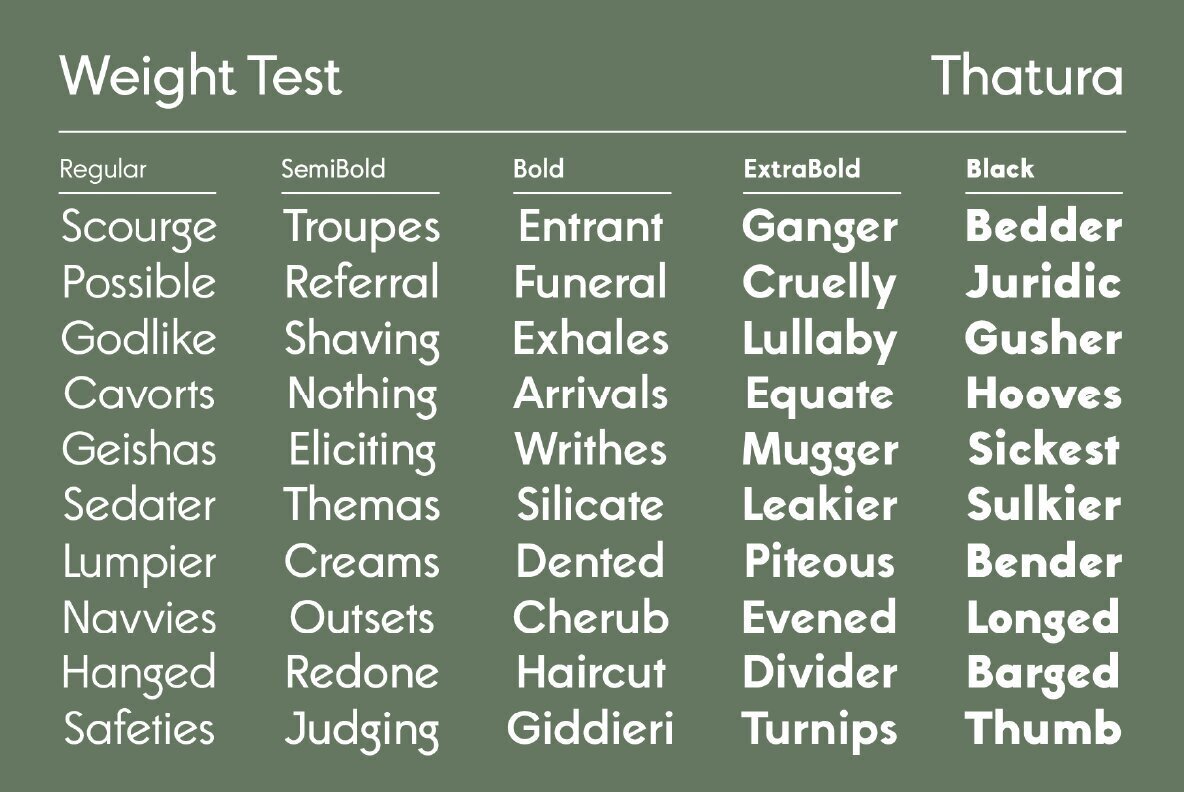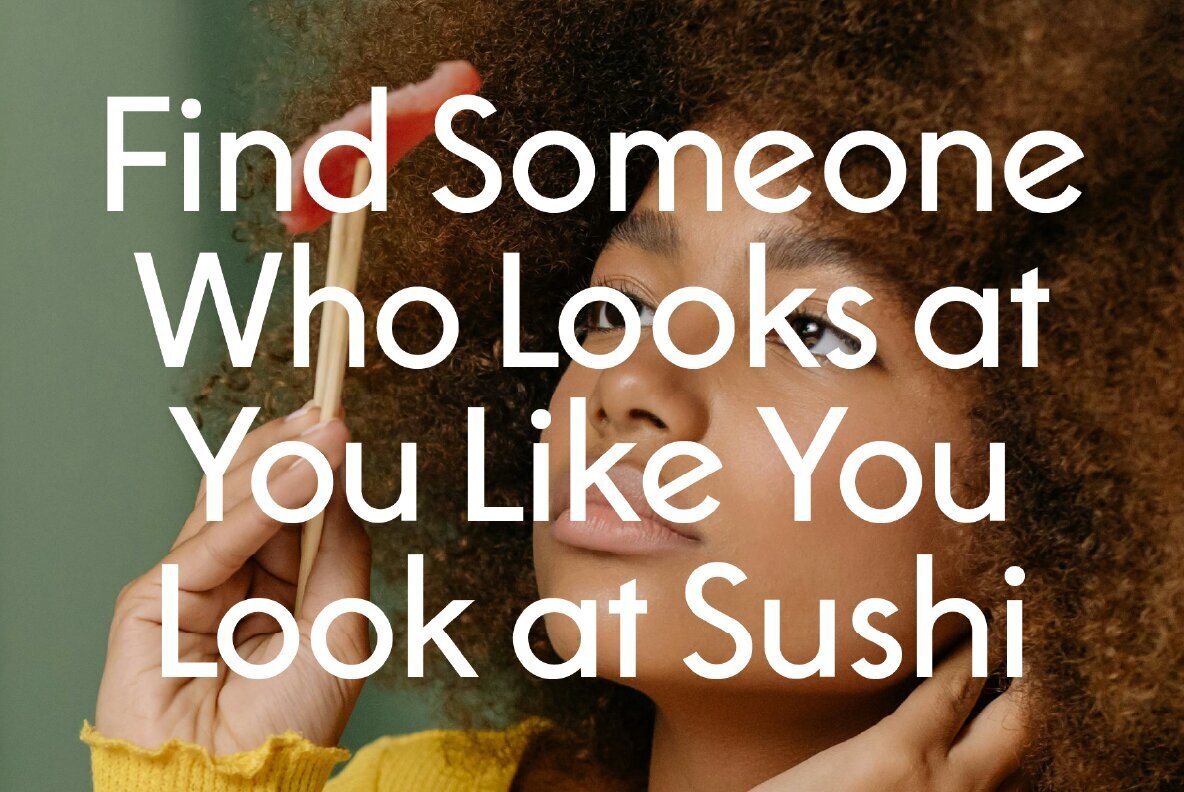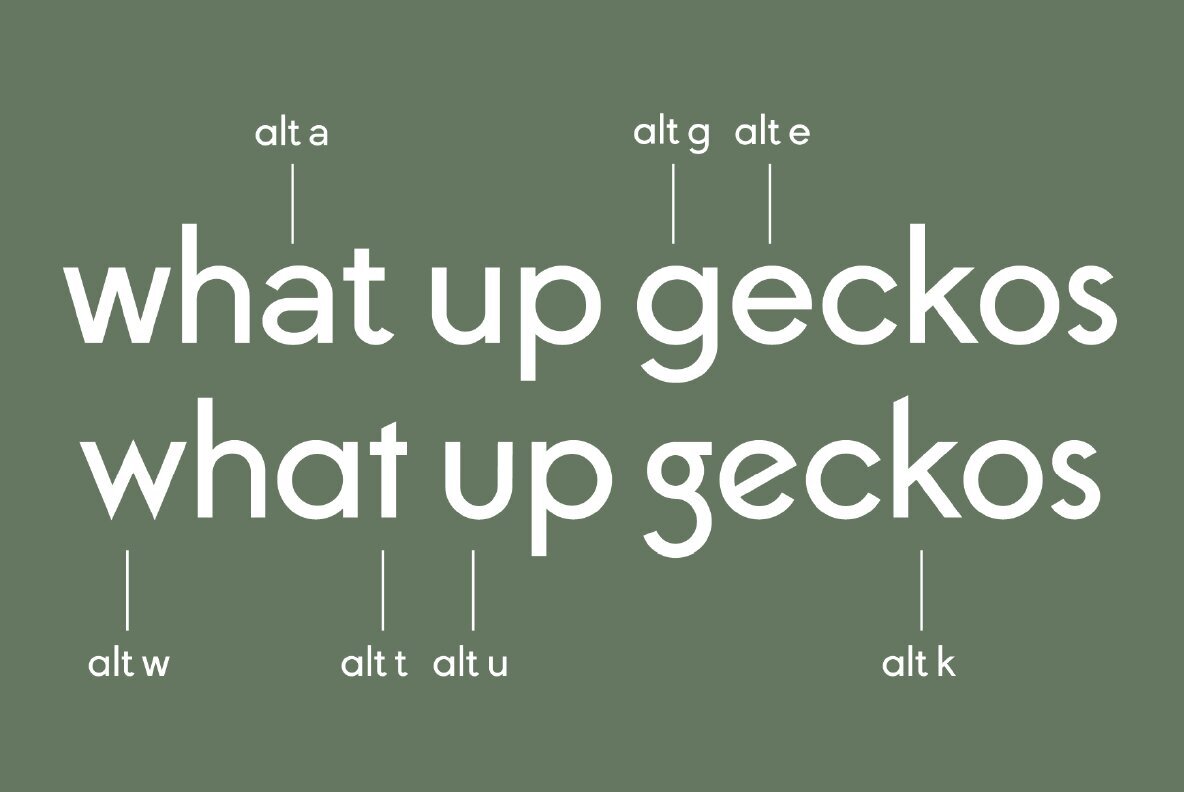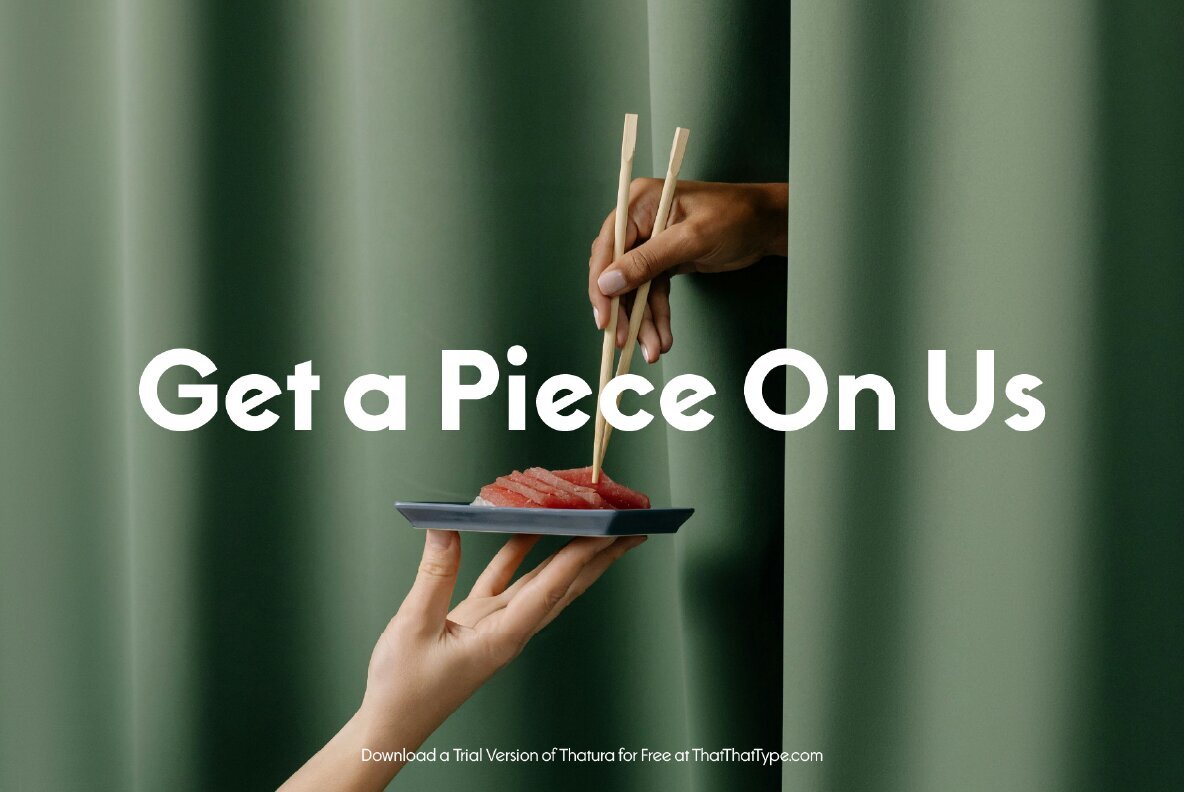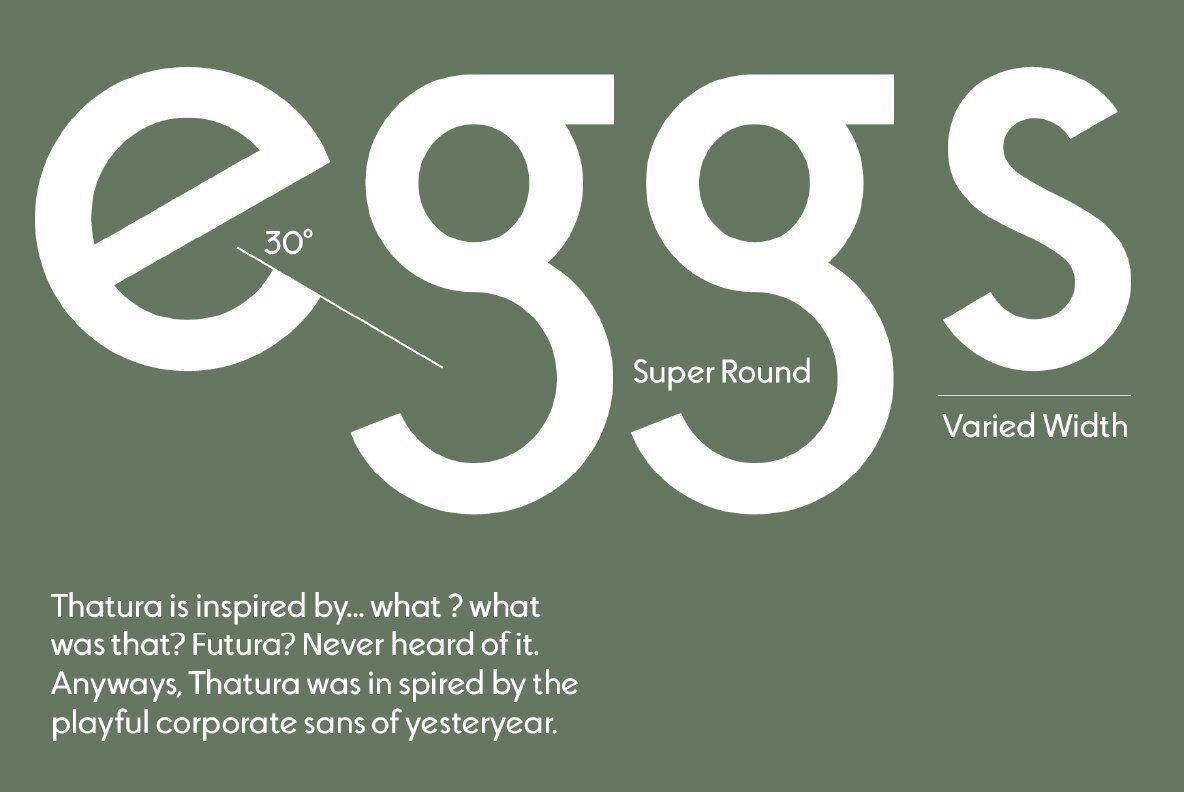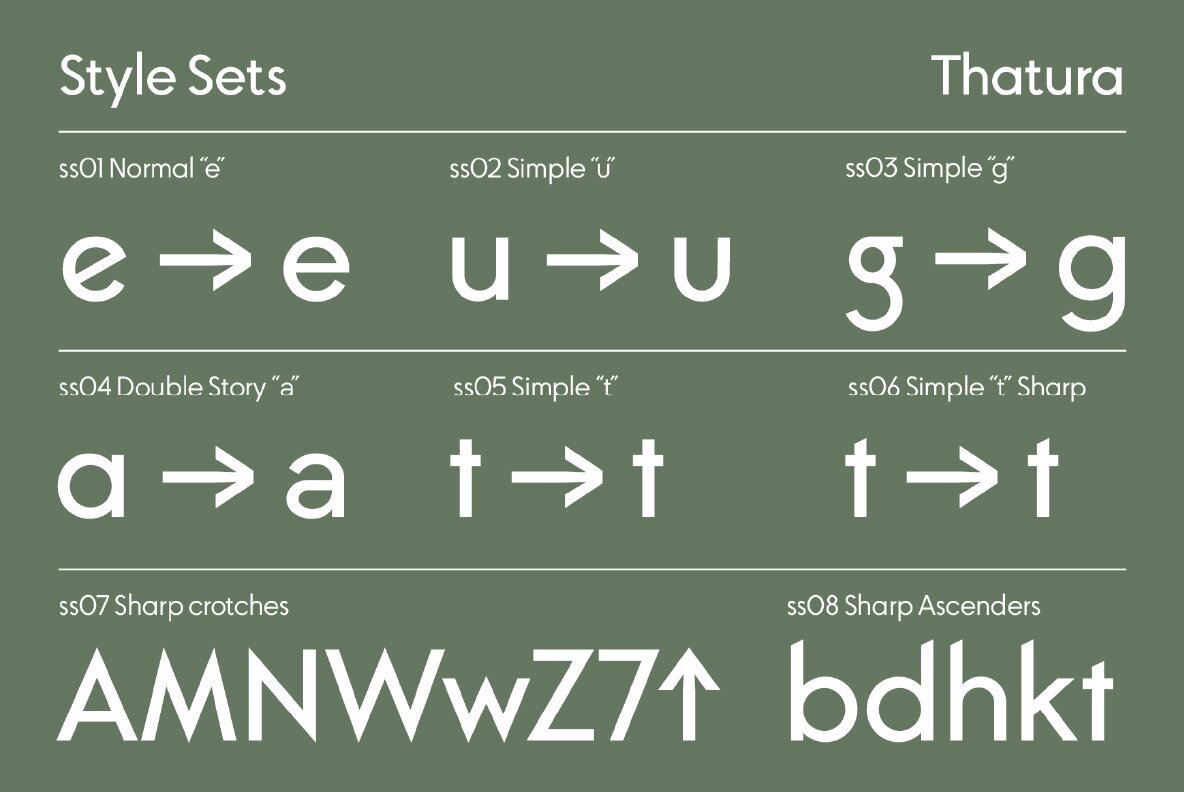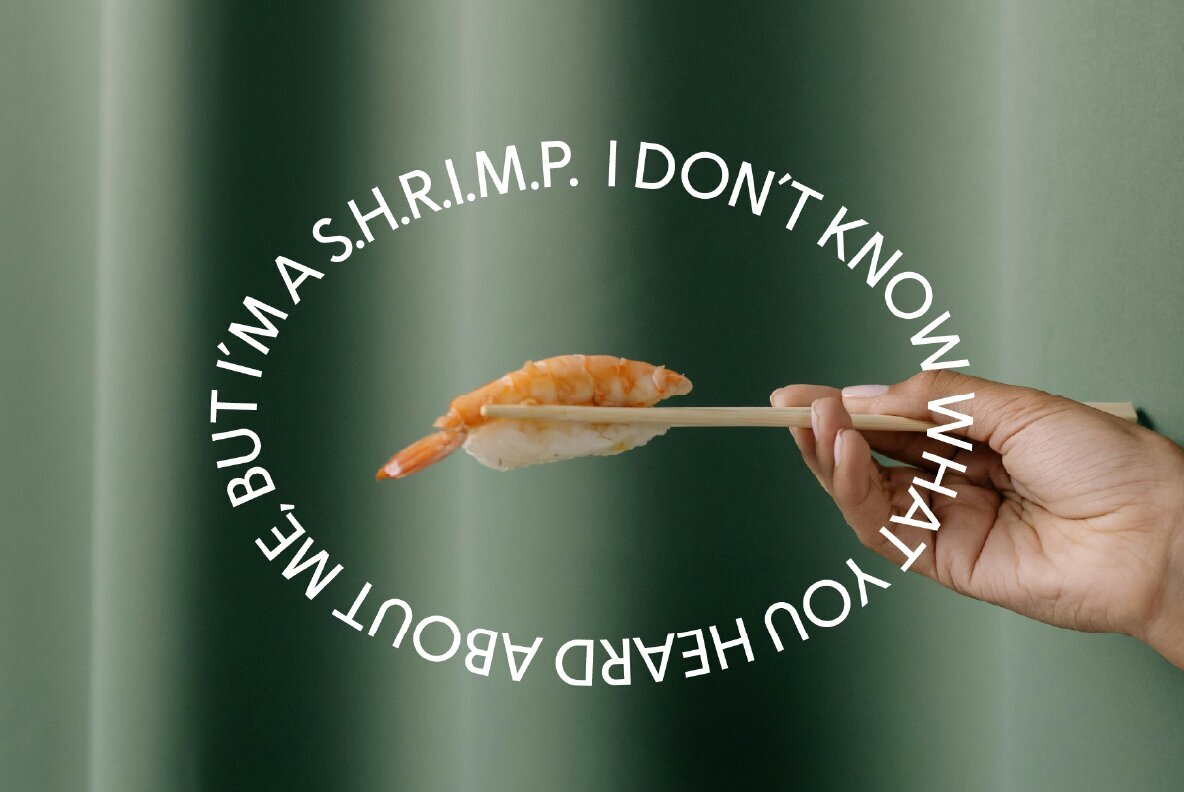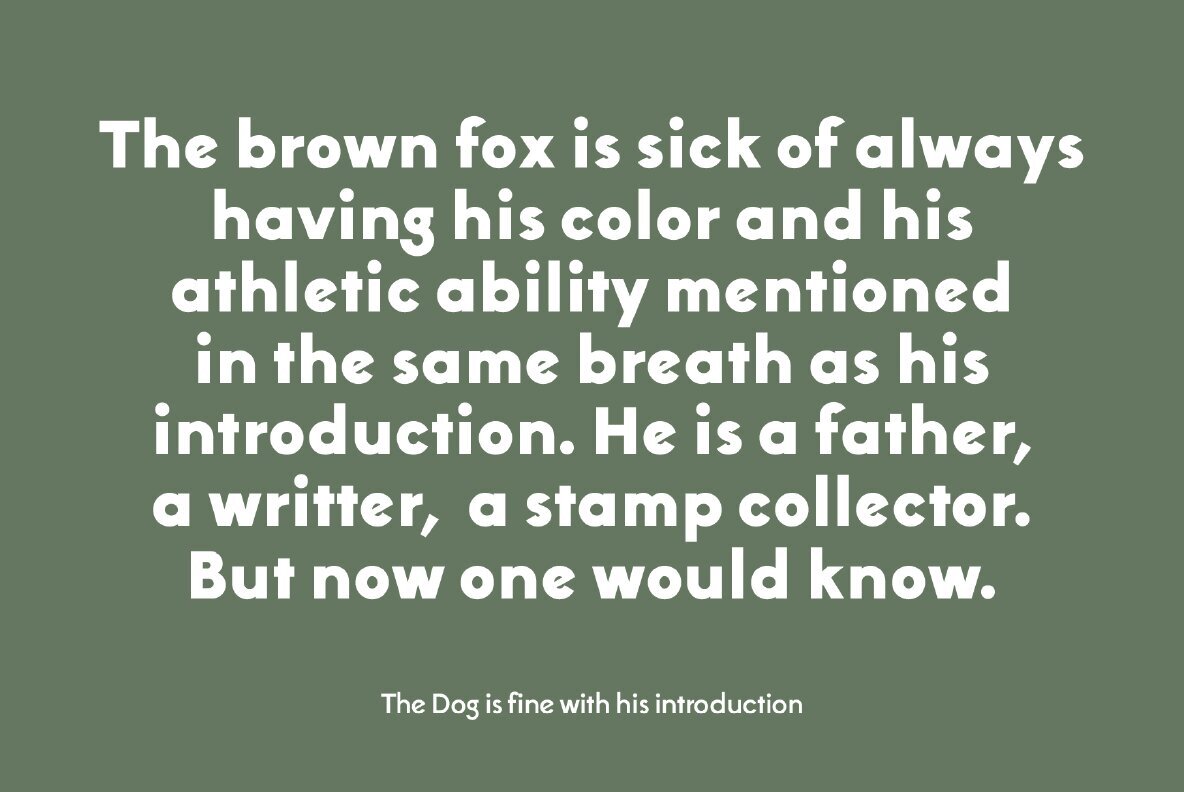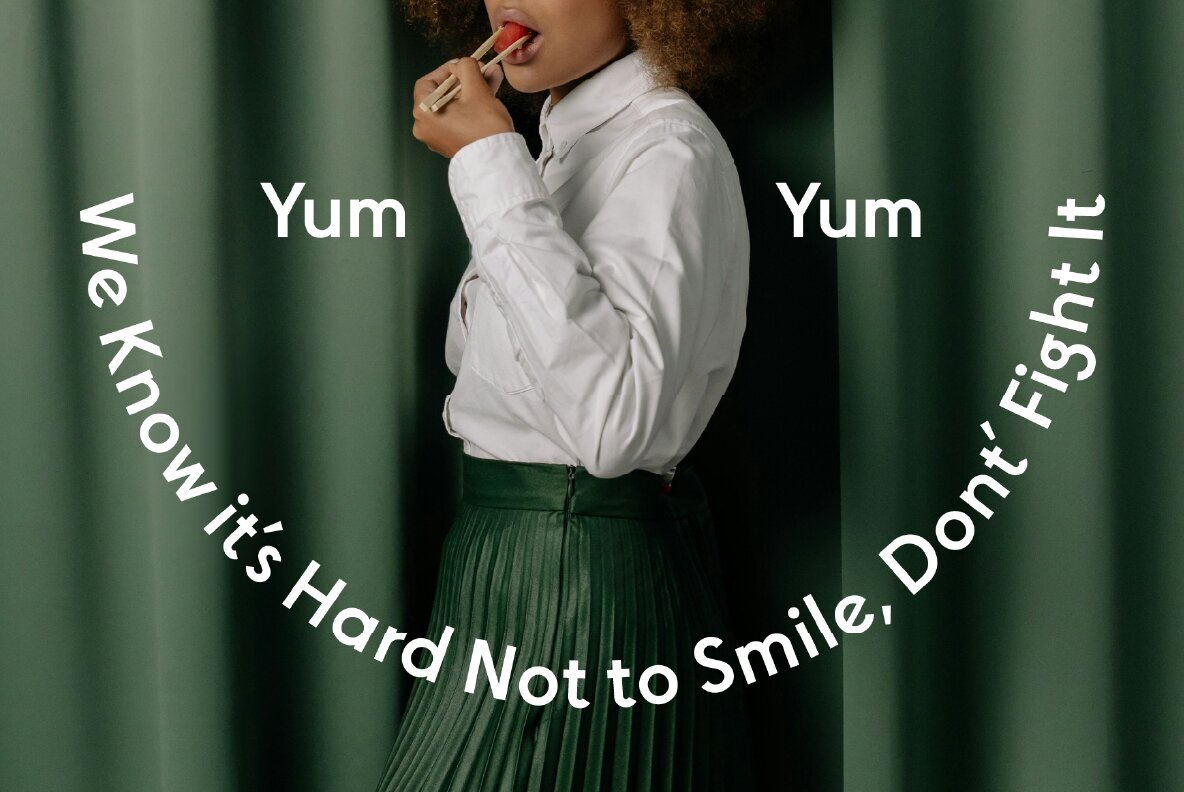
Thatura Font
Thatura is a distinctive geometric sans serif typeface that combines traditional geometric design with quirky, modern elements. Its unique characteristics include sharp corners, off-axis elements, and whimsical modifications, giving it versatility and charm. Whether you seek a playful touch or a more subdued appearance, Thatura offers flexibility to suit various design needs.
The font family provides a rich variety of customization options, including a Variable Weight axis and five preset weights. It features alternative style sets for multiple characters such as "a," "e," "g," "t," and "u," along with sharp corner and ascender options. Additionally, Thatura includes small caps, numerals suited for subscripts and fractions, and case-sensitive punctuation. Supporting Latin 3 languages, this typeface is well-equipped to meet the demands of creative typographic projects.